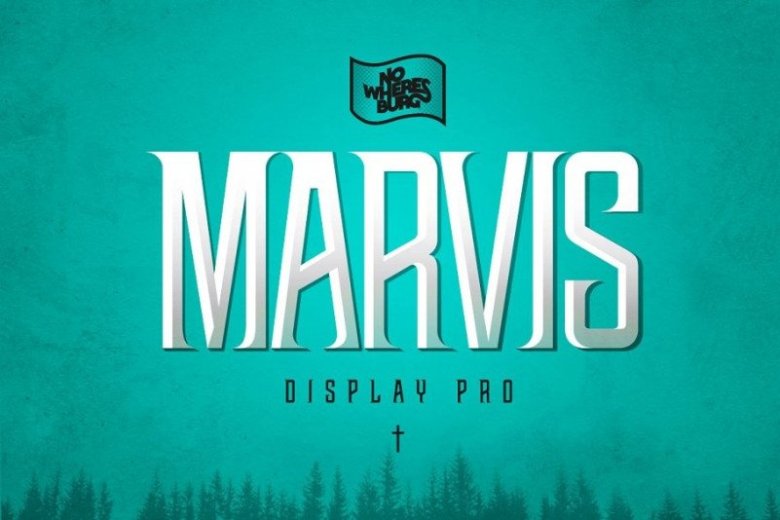
NWB Marvis Display Font
Hello friend. NWB Marvis Font is a stylish futuristic font. Perfect for various design project, both printing and screen display, and is most suitable for modern design, technology, sci-fi, futuristic style. Just see the demo images given above for an abstract idea about the capability of this typeface.
NWB Marvis Display Pro is a vintage display typeface with a contemporary feel. Late 19th century aesthetics inspired its’ design, but it is equally suitable for modern design applications.
Featuring over 290 ligatures, 1357 total glyphs, context sensitive alternates, and 35+ catchwords , it allows for deep typesetting customization options for poster headlines, movie titles, product labels, and brand identities.